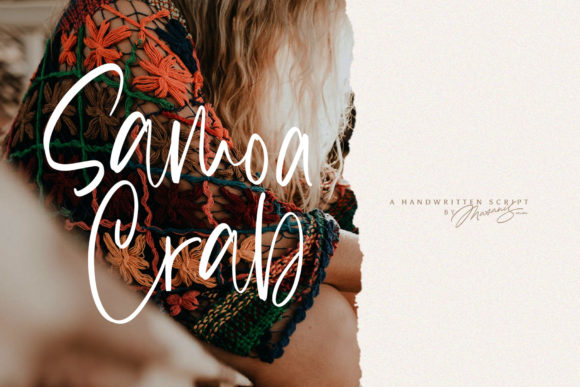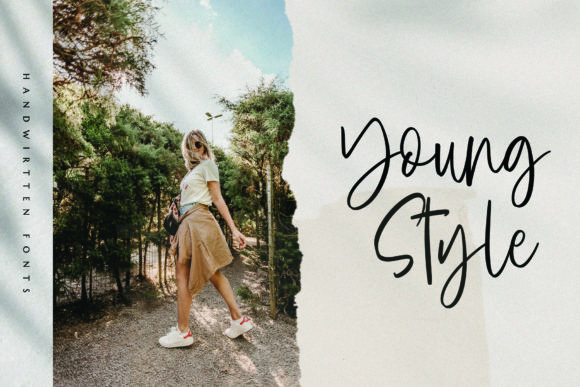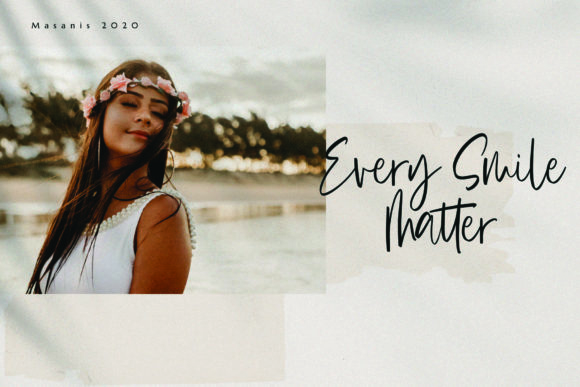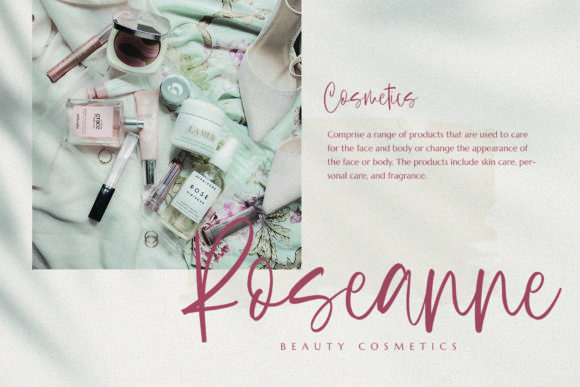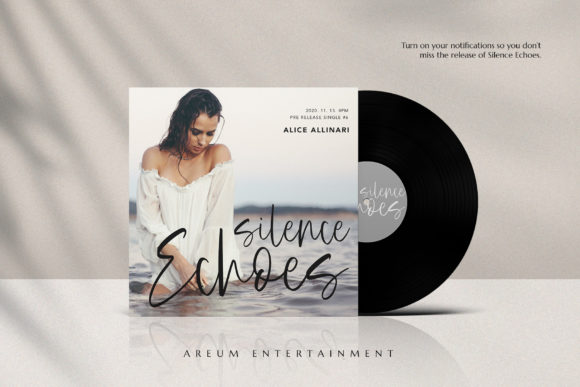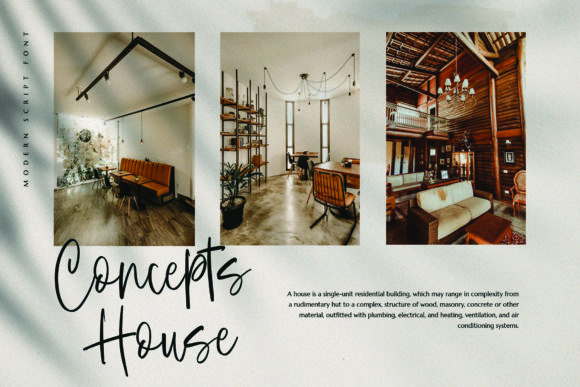
About Samoa Crab Font
Samoa Crab is a fresh, unique script with a carefree attitude and a playful edge.
Perfect for adding a quirky but casual feel, it comes with a large selection of natural-looking ligatures.
This font is perfect for logos, invitations, wedding designs, social media posts and much more!